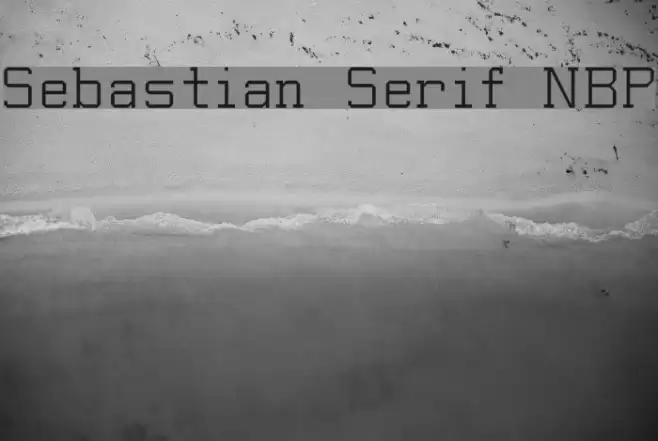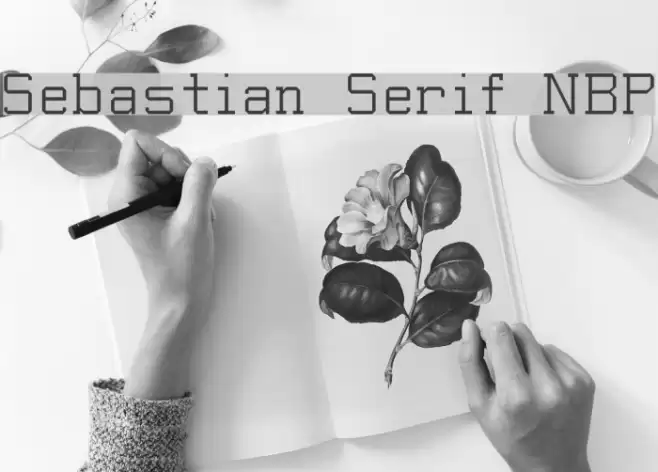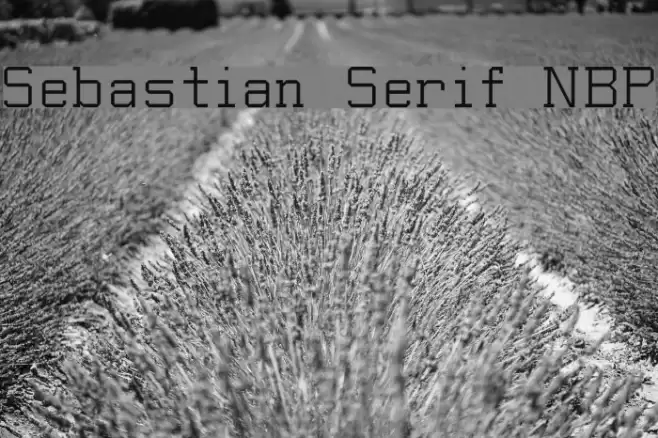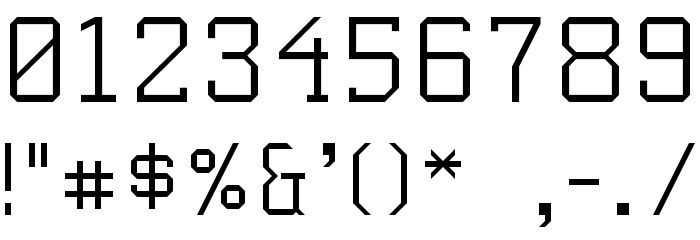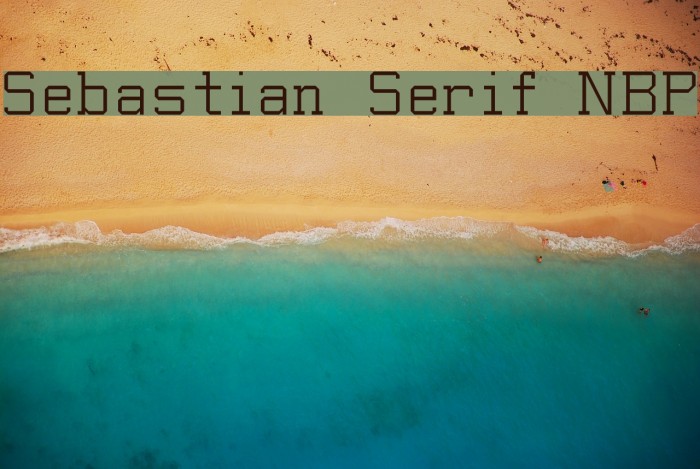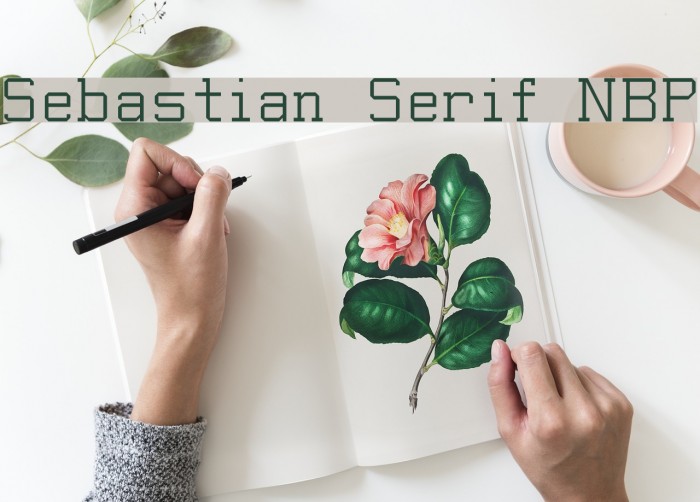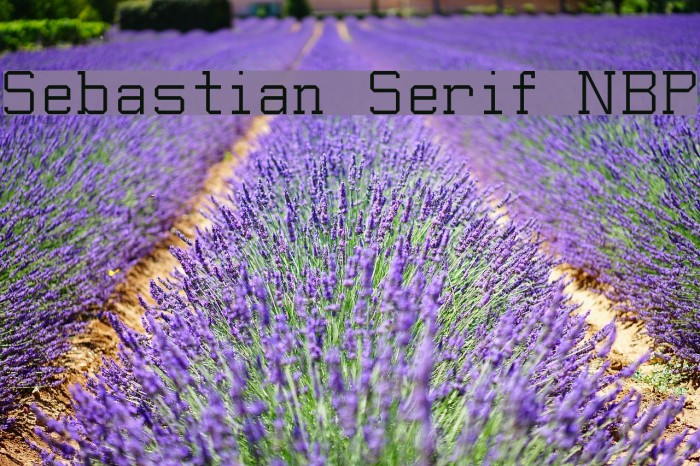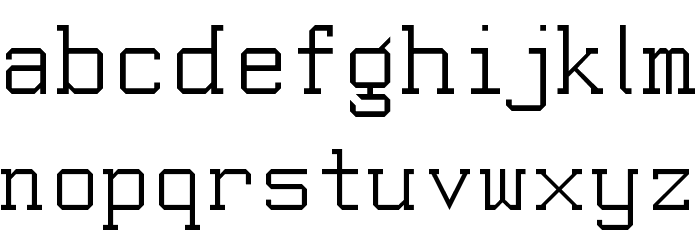
Sebastian Serif NBP Font
Sebastian Serif NBP Description
This font features a geometric and structured design with a modern twist. The characters are constructed with a consistent stroke width, giving it a monospaced appearance. The uppercase letters are bold and angular, while the lowercase letters maintain a similar geometric style, providing a cohesive look. The numerals are clear and distinct, matching the overall aesthetic. Special characters are well-integrated, maintaining the font's uniformity. This font's design is both functional and stylish, making it suitable for a variety of applications.
A geometric and structured font with a modern, monospaced appearance from Uncategorized fonts.
- Proposed Projects: Ideal for coding environments, technical documentation, modern branding, and digital interfaces.